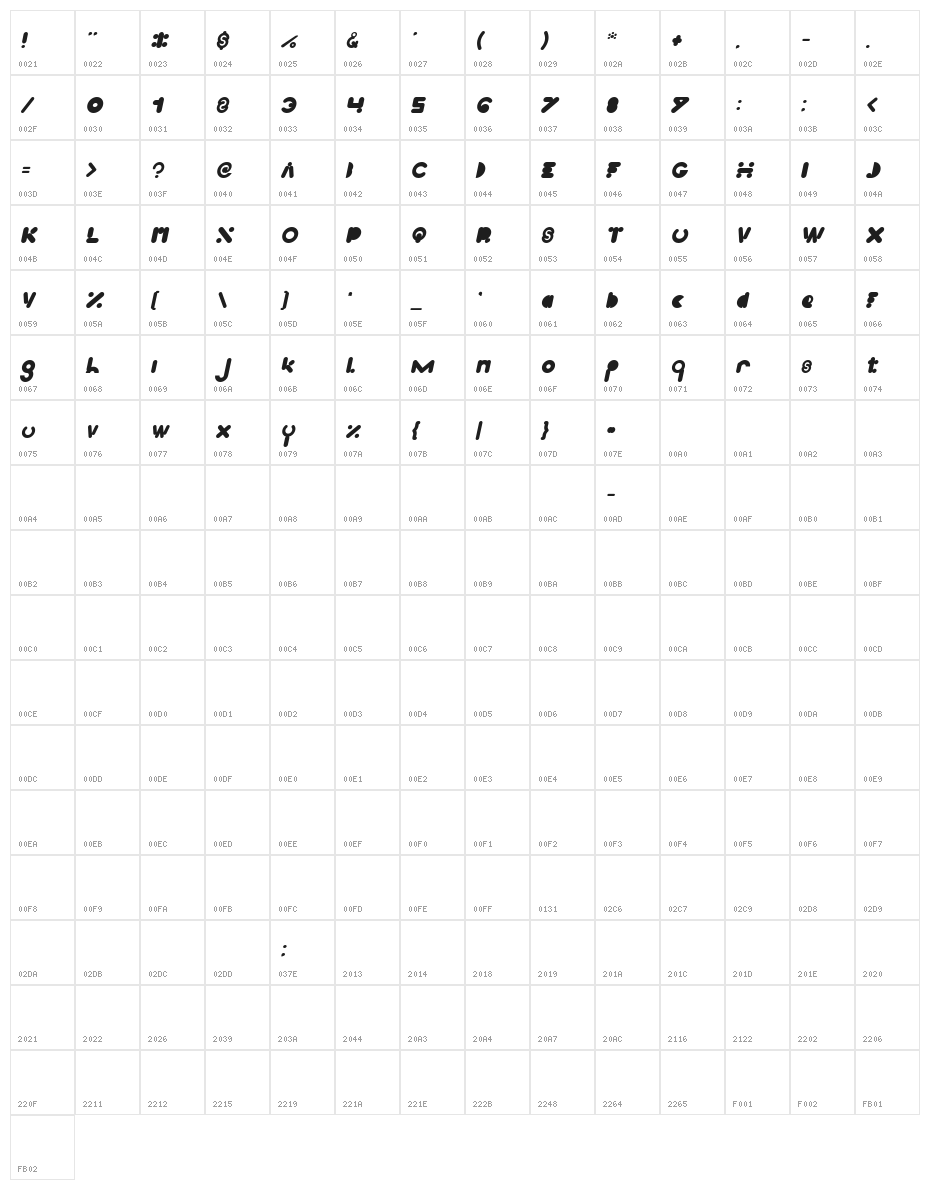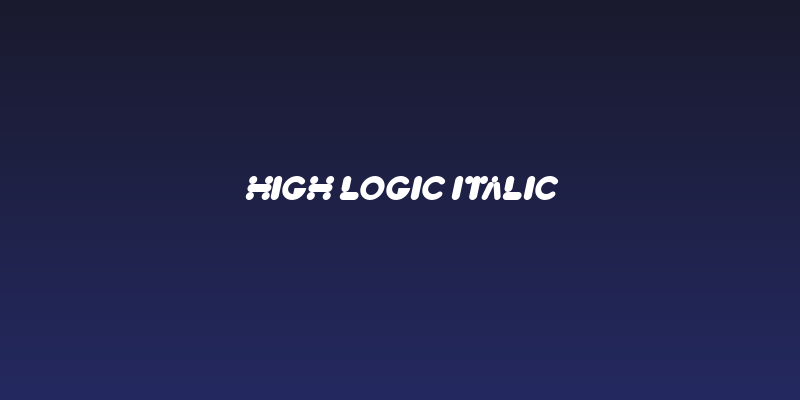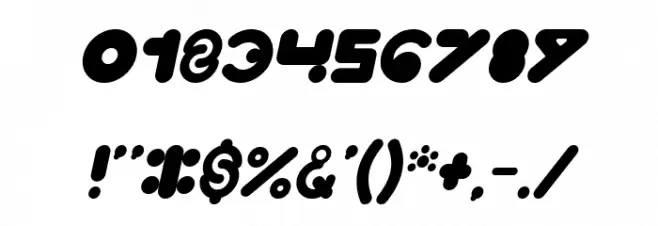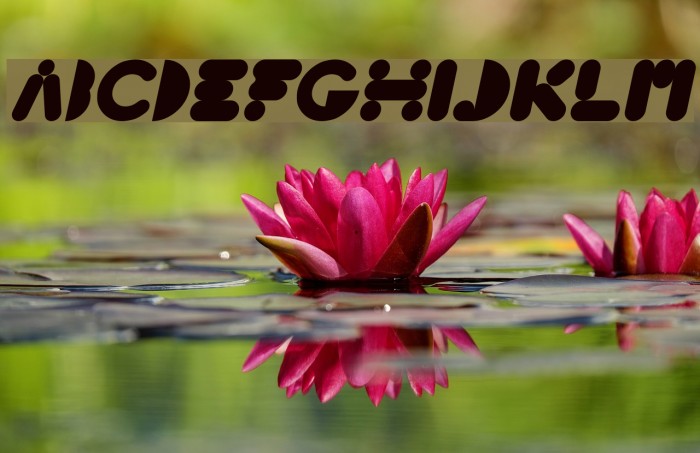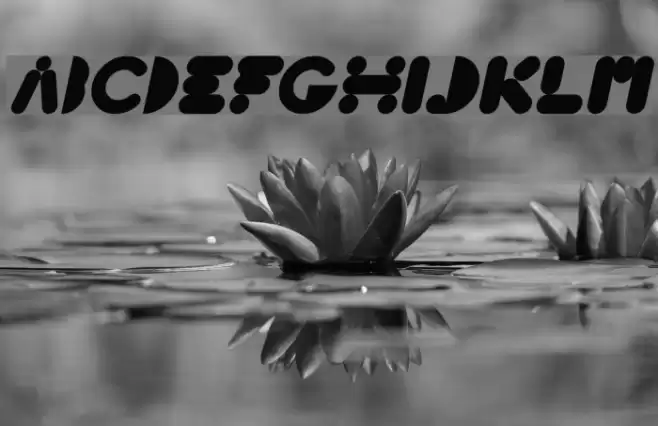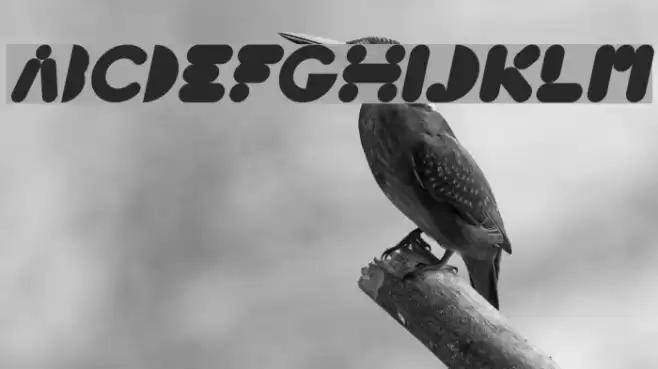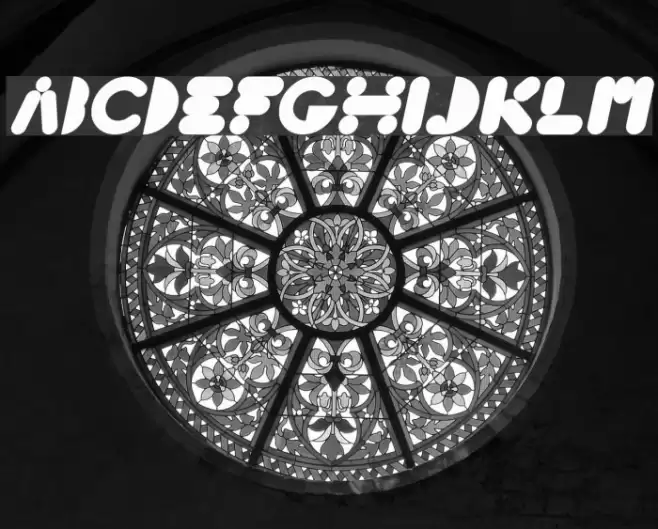
High Logic Italic Font
High Logic Italic Description
This font features a bold and playful design with rounded, bubble-like characters. The letters are thick and have a unique, whimsical style that gives them a sense of movement and energy. The uppercase and lowercase letters maintain a consistent weight, creating a cohesive look across the alphabet. Numbers and special characters follow the same playful aesthetic, making this font suitable for creative and informal projects. The overall appearance is eye-catching and modern, with a touch of retro charm.
| Overall Style | Playful, Modern, Retro |